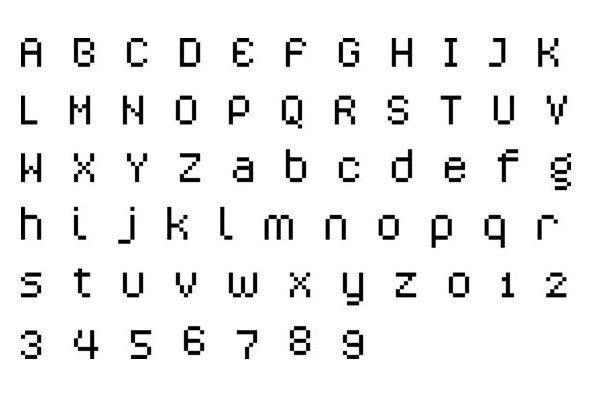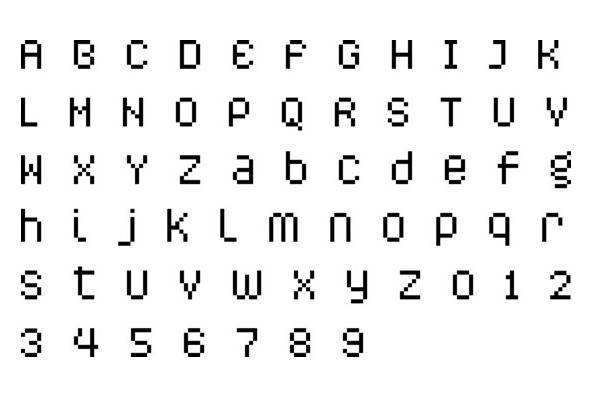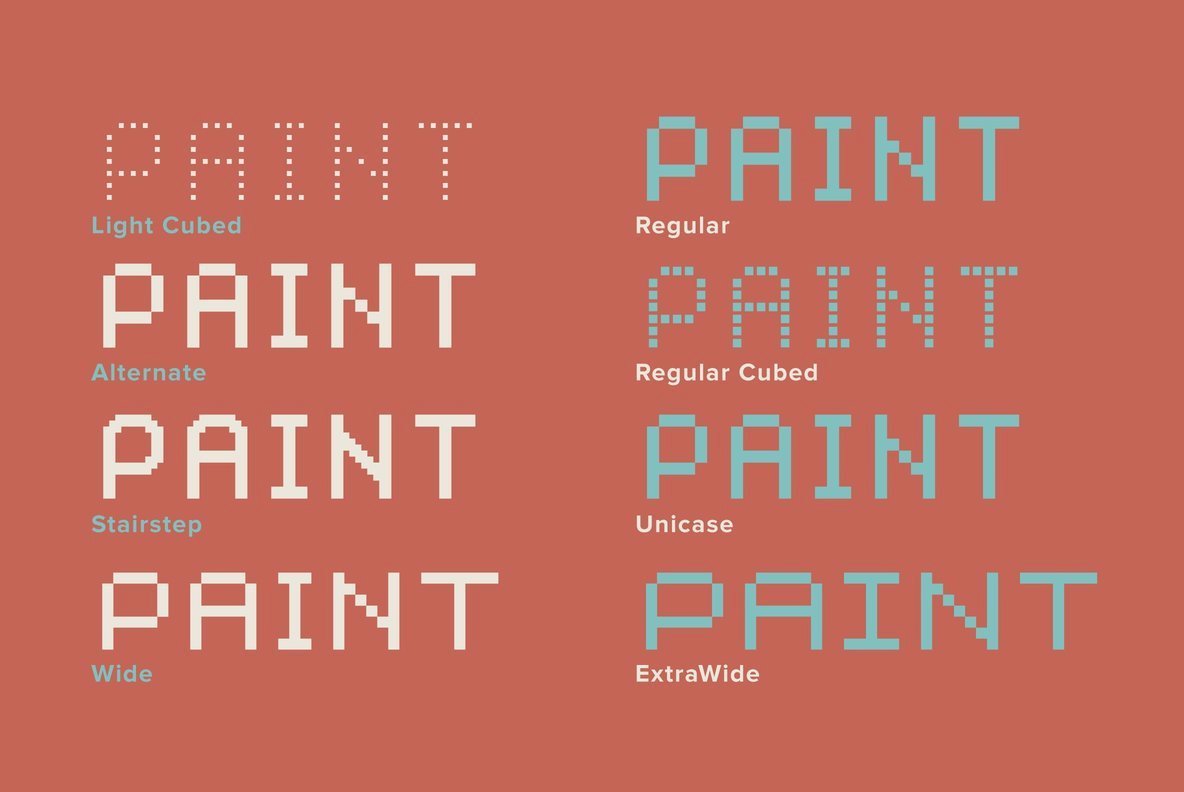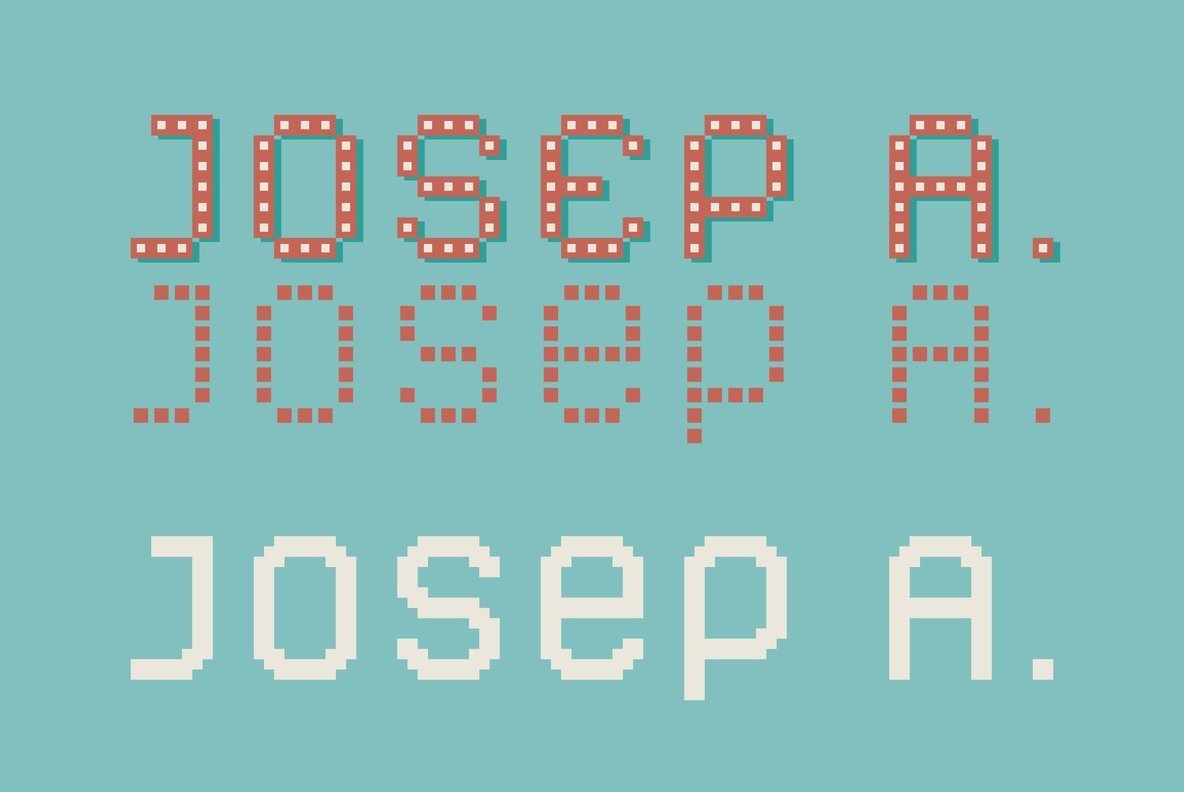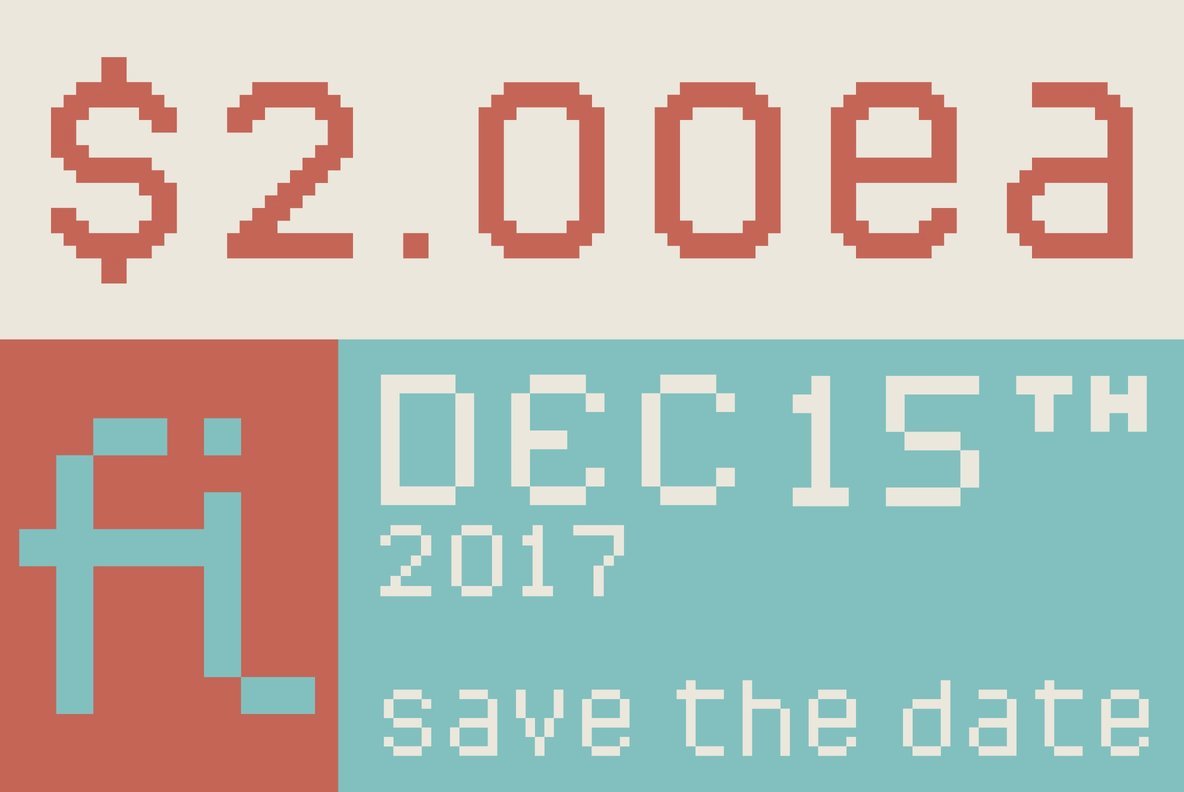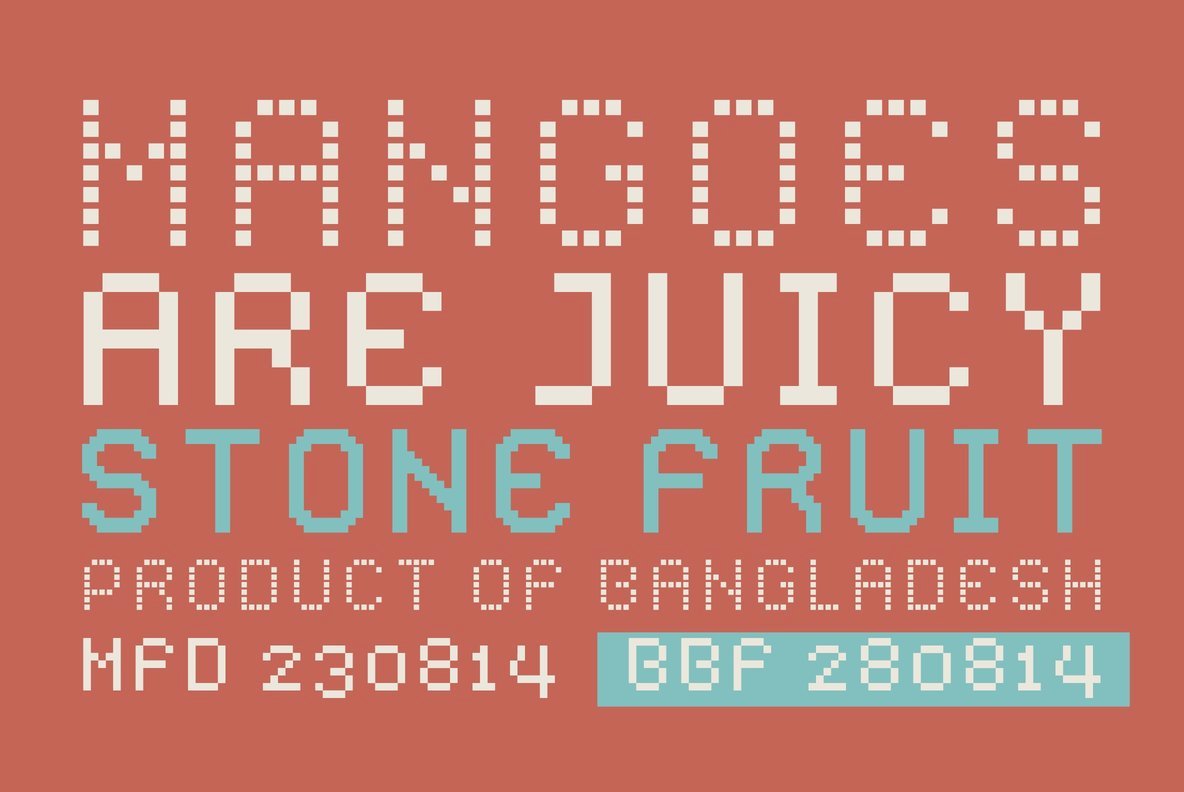
YWFT Caliper
Foundry: YouWorkForThem
YWFT Caliper was originally created as a unique-yet-readable bitmap typeface. While it works well onscreen at small point sizes, it also can be used at larger sizes for retro-style headers and attention-grabbing statements. YWFT Caliper also contains two free bonus design styles that explore alternate and very unique letter options. These extra styles (called "Stairstep" and "Cube") are what set Caliper apart from the rest of the pixel fonts out there on the grid. YWFT Caliper was converted and updated to Opentype format in 2010. Designed exclusively by Michael Cina and YouWorkForThem.